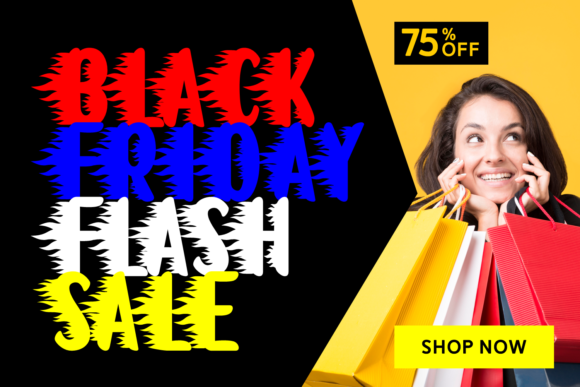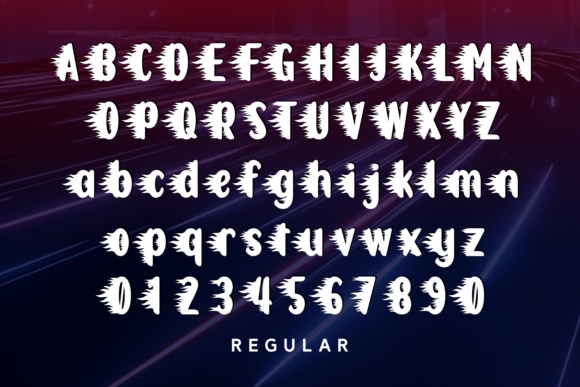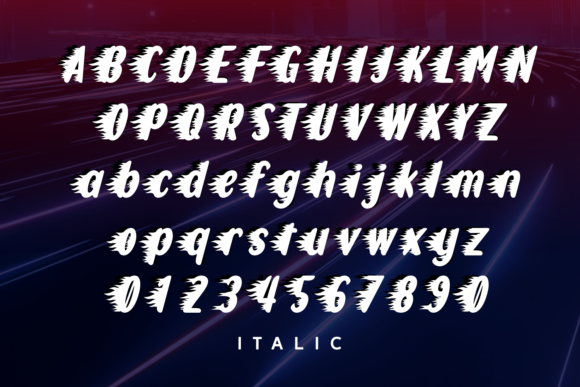
Introducing Flashe Font: The Ultimate Display Font for Stunning Designs
Are you tired of using the same old fonts for your designs? Look no further! Flashe Font is here to revolutionize your typography with its unique and cool design. This display font is perfect for creating eye-catching posters, flyers, and prints that will leave a lasting impression on your audience.
What Makes Flashe Font So Special?
Flashe Font is a one-of-a-kind display font that boasts a distinctive style that sets it apart from other fonts. Its unique design makes it perfect for adding a touch of personality to your designs. Whether you’re a designer, crafty DIY enthusiast, or simply someone who loves to create, Flashe Font is the perfect addition to your typography arsenal.
Endless Possibilities with Flashe Font
With Flashe Font, the possibilities are endless! Use it to create stunning posters, flyers, brochures, business cards, and more. Its versatility makes it perfect for a wide range of design projects, from bold and colorful to subtle and elegant. The font’s unique design ensures that your text will stand out, making it perfect for headlines, titles, and emphasis text.
Why Choose Flashe Font?
So, why choose Flashe Font over other display fonts? Here are just a few reasons:
- Unique Design: Flashe Font has a distinctive style that will set your designs apart from the rest.
- High-Quality: The font is designed with high-quality and clarity in mind, ensuring that your text looks sharp and professional.
- Versatile: Use Flashe Font for a wide range of design projects, from posters and flyers to business cards and more.
Tips for Using Flashe Font
Here are some tips for getting the most out of Flashe Font:
- Experiment with Colors: Flashe Font looks great in bold and bright colors, so don’t be afraid to experiment and find the perfect hue for your design.
- Play with Sizes: The font looks great in large and small sizes, so try it out in different sizes to see what works best for your design.
- Combine with Other Fonts: Flashe Font pairs well with other fonts, so try combining it with a serif or script font for added interest.
Who Can Benefit from Flashe Font?
Flashe Font is perfect for:
- Graphic Designers: Add a unique touch to your designs with Flashe Font.
- Crafty DIY Enthusiasts: Use Flashe Font to create personalized gifts, decorations, and more.
- Small Business Owners: Use Flashe Font to create eye-catching marketing materials, such as posters, flyers, and brochures.
Flashe Font is a game-changing display font that will take your designs to the next level. With its unique and cool design, high-quality, and versatility, it’s the perfect addition to any designer’s typography arsenal. So why wait? Download Flashe Font today and explore its endless possibilities!